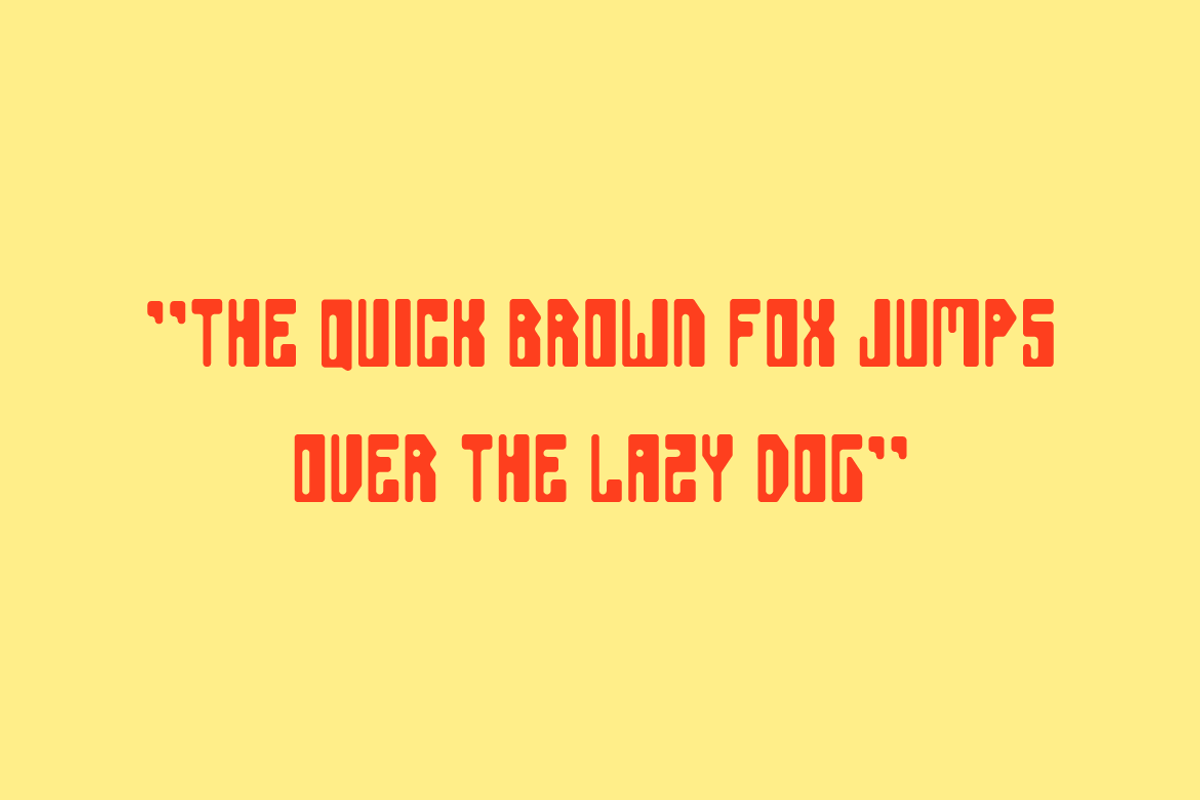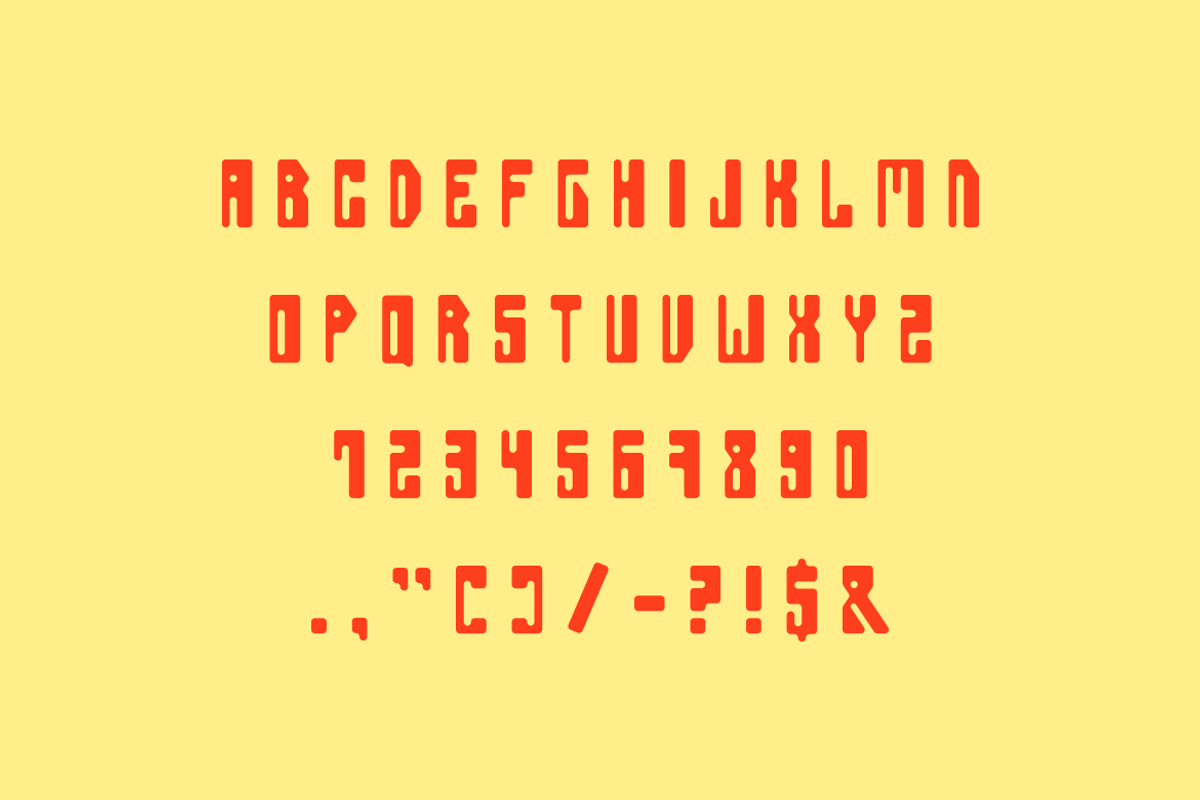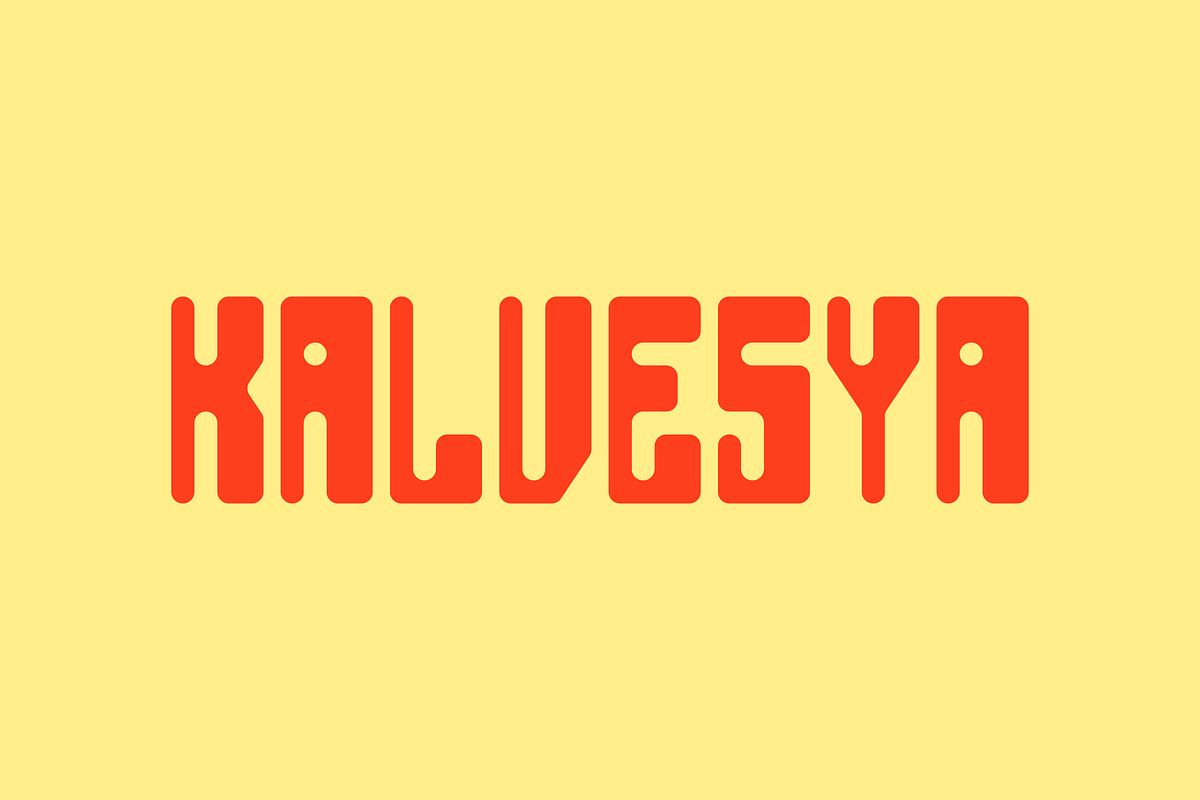
Kalvesya
Kalvesya is a modern bold condensed sans-serif typeface designed for impact and versatility. With its strong and sleek design, it’s perfect for headlines, branding, posters, logos, and editorial layouts. Kalvesya brings a powerful and contemporary edge to any creative project!